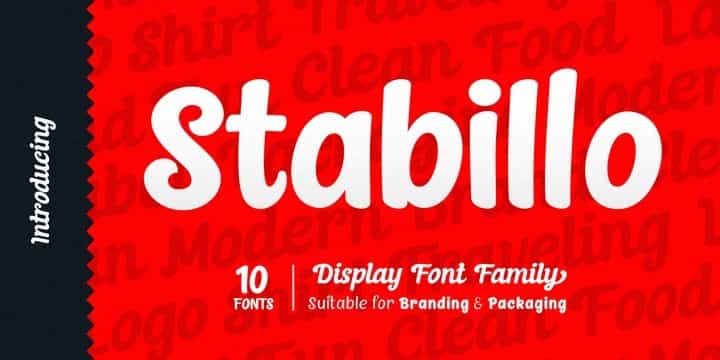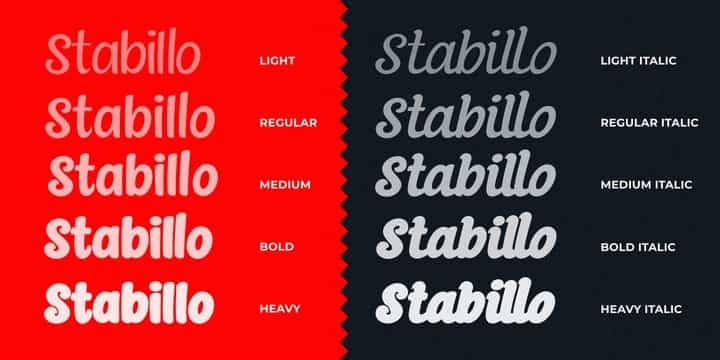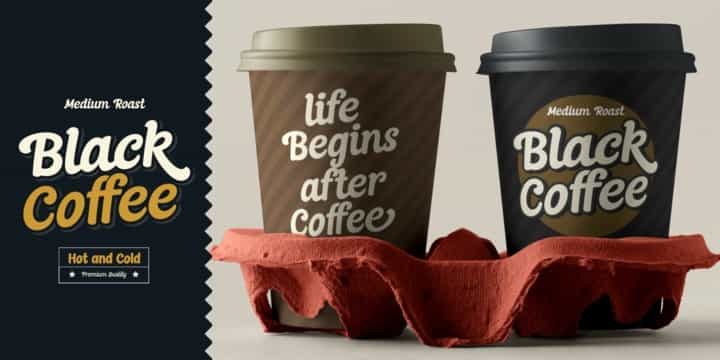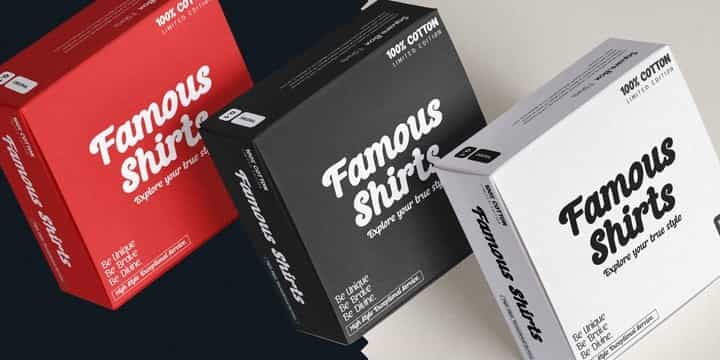
Stabillo font family is designed for logo and packaging design of food brands. Ligatures and alternate characters are available in the Italic version for both fonts. This font is perfect for the following uses; food and beverage logos, clothing designs, flyers, posters and brochures.